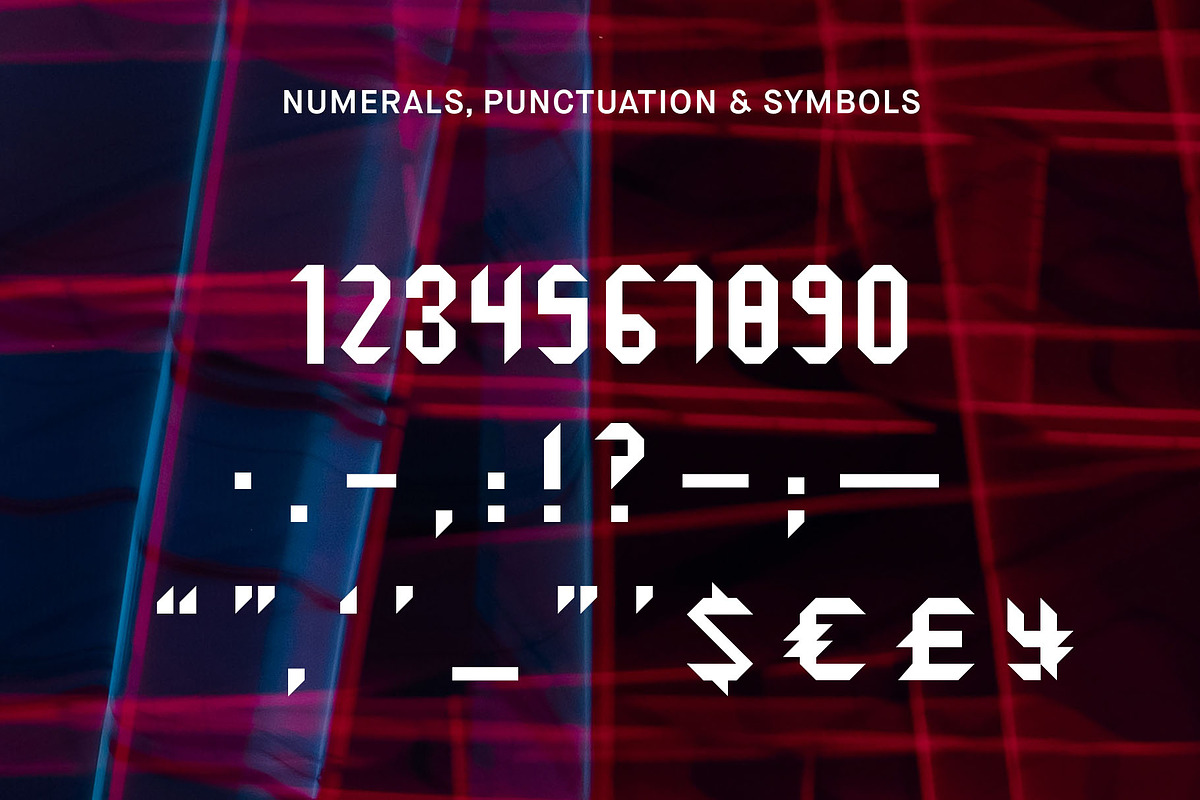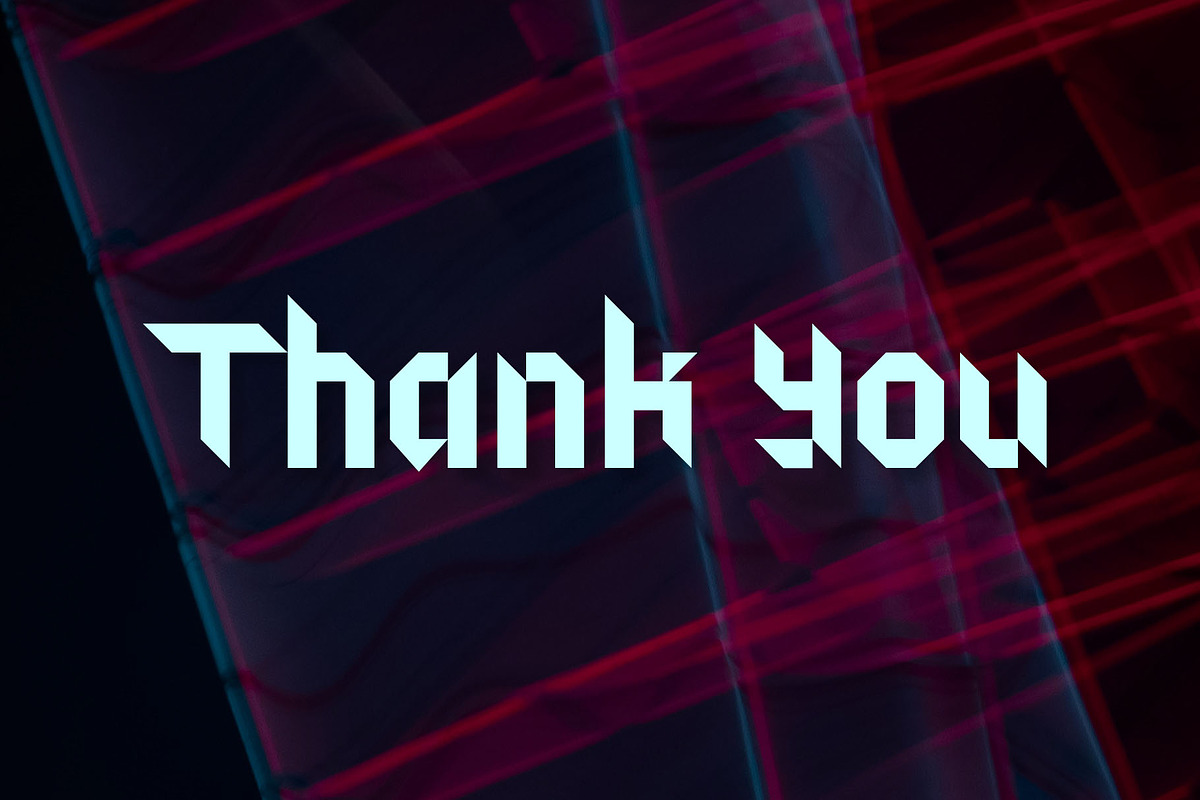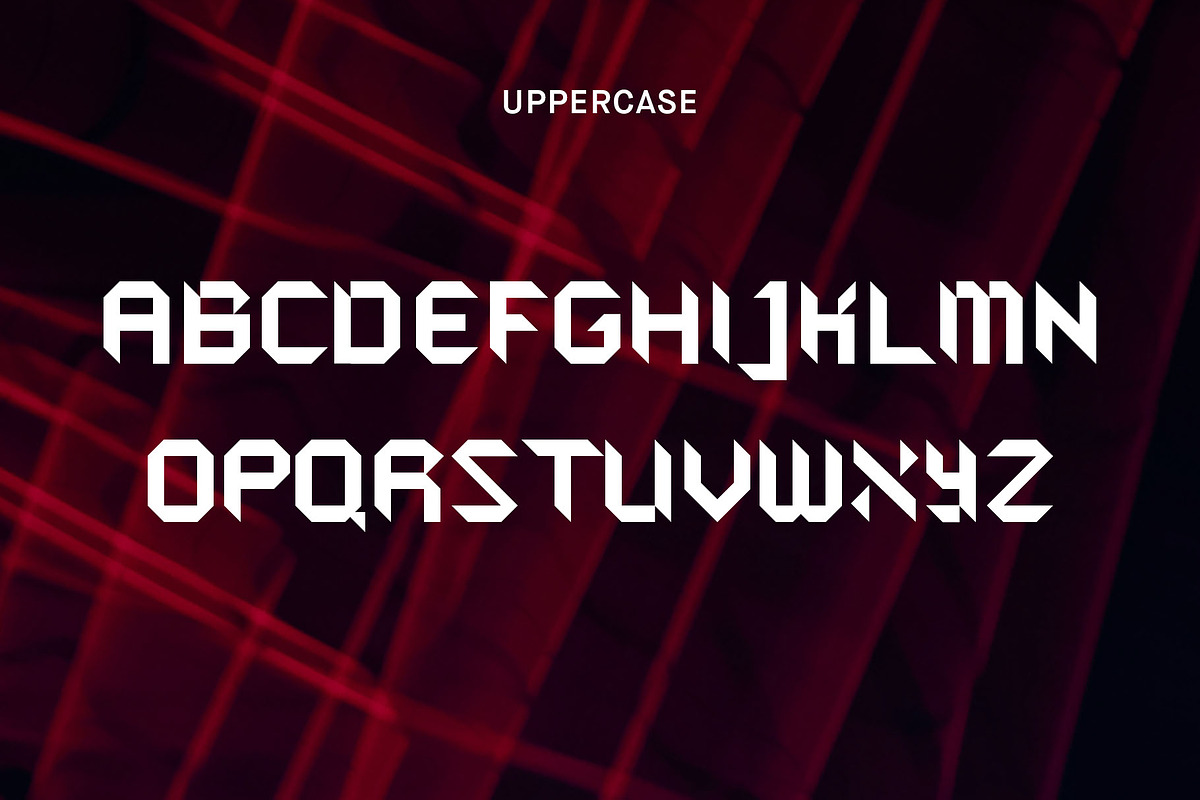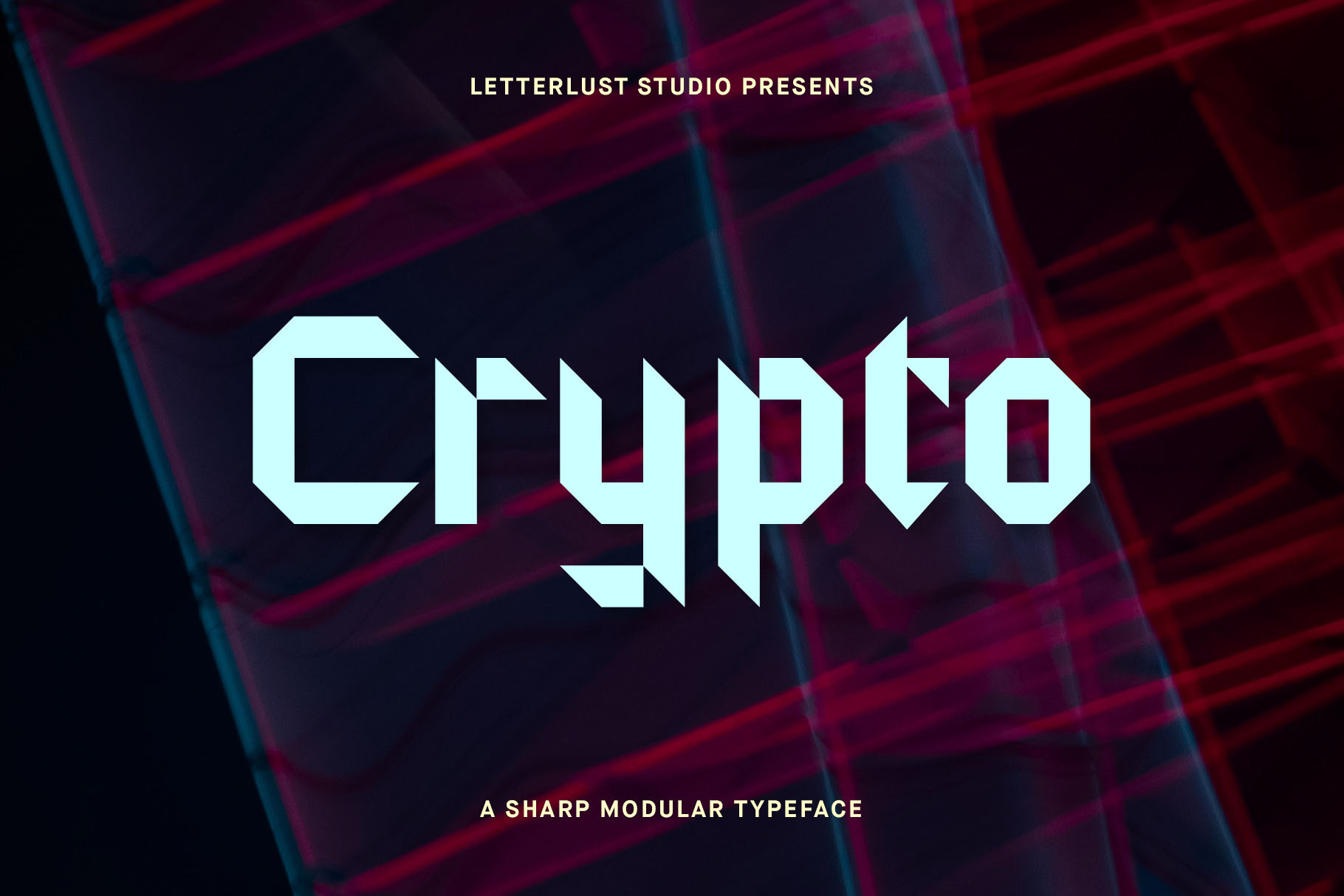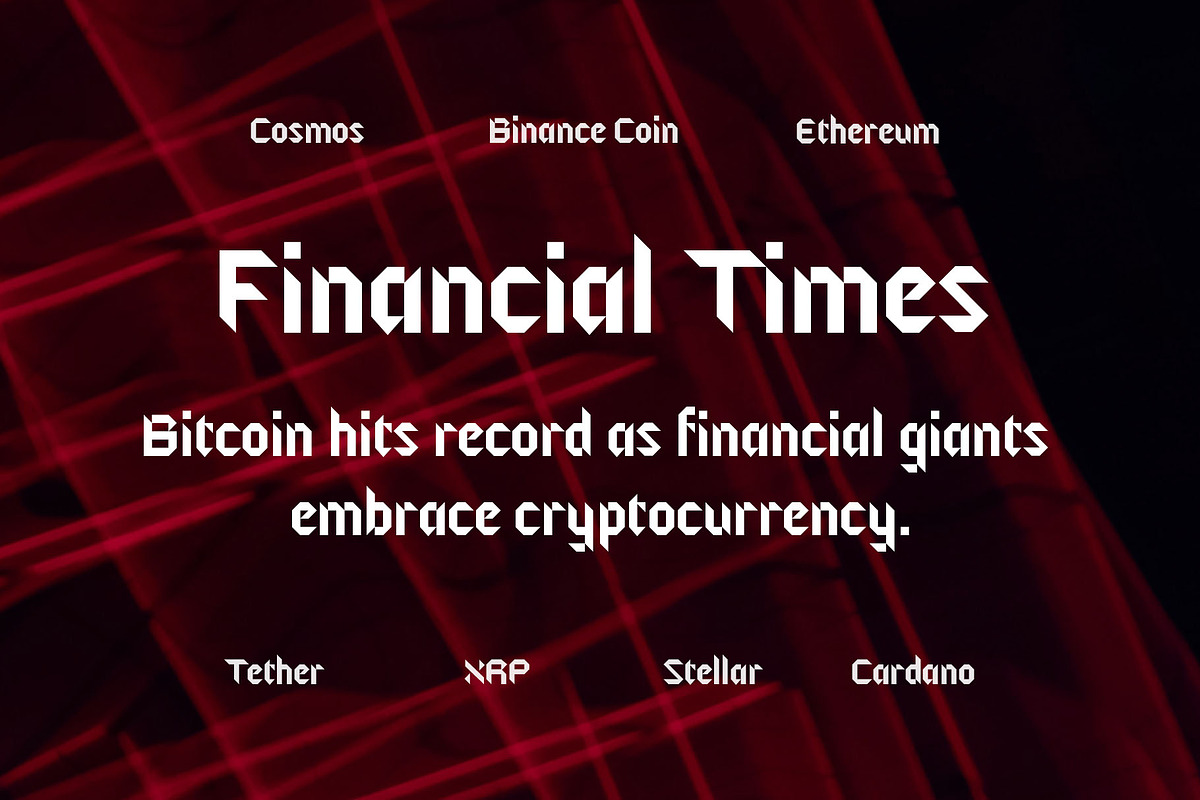
Crypto Typeface
Crypto typeface is new font Black letter from Letterlust Studio. Crypto is a typeface with sharp modular features. It is suitable for finance and tech related projects. The Crypto typeface includes a full set of capital and lowercase letters, as well as numerals & punctuation.
Uppercase Character Set A-Z
Lowercase Character Set A-Z
Numerals, Punctuation & Symbols
Crypto typeface is suitable font for many creative products & designs.